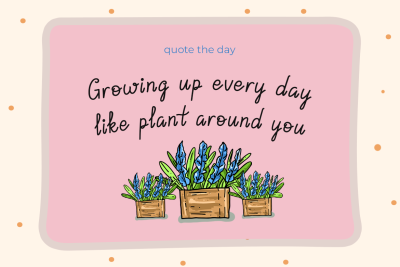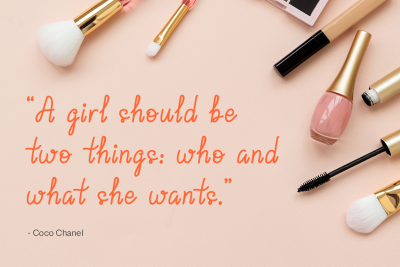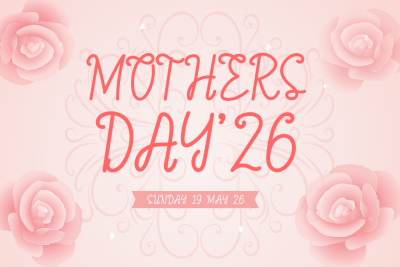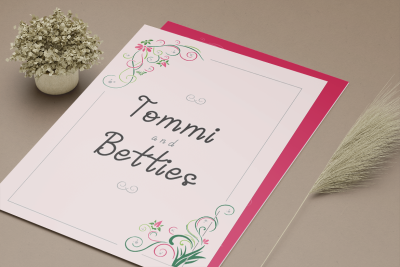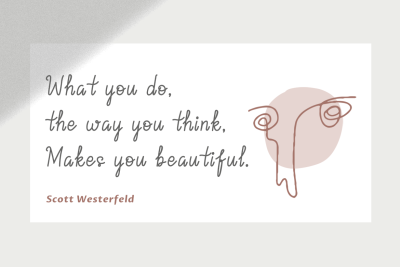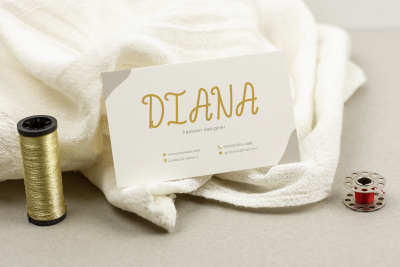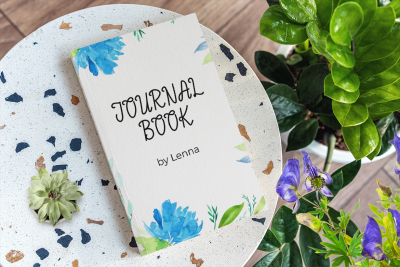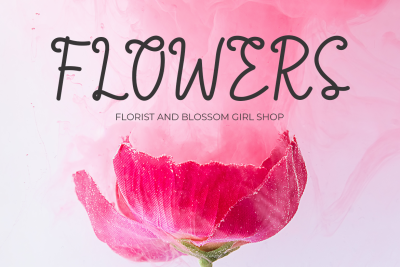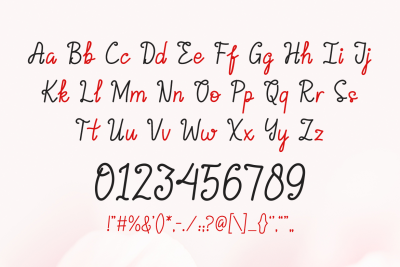
Handwriting Font Felicia is a beautifully designed script font that blends elegance with a casual handwritten feel. Moreover, its smooth curves and balanced strokes capture the charm and warmth of real handwriting. It offers a natural touch that makes any text feel more personal and inviting.
Furthermore, Handwriting Font Felicia suits various creative projects. Whether you’re designing a logo, crafting social media content, or creating invitations, this font adds sophistication and authenticity. Additionally, the subtle variations in letterforms and ligatures create a dynamic yet cohesive look, enhancing both professional and personal designs.
One of the standout features of Handwriting Font Felicia is its readability. The well-spaced letters ensure clarity in both large and small sizes. Consequently, this font excels in branding, packaging, and editorial designs where legibility matters. Moreover, it supports multiple languages, making it ideal for international projects.
Beyond its aesthetics, Handwriting Font Felicia adds an expressive and modern touch to any design. Whether used in print or digital formats, it enhances the visual appeal of any project. As a result, it is a versatile choice for various design needs.
Handwriting Font Felicia Who is it for?
Handwriting Font Felicia is perfect for designers, business owners, and creatives looking for a stylish handwritten touch. Its delicate yet confident strokes make it ideal for:
- Graphic Designers: Great for branding, packaging, and promotional materials that need a handwritten touch.
- Social Media Influencers: Additionally, perfect for Instagram posts, Pinterest graphics, and YouTube thumbnails that need a modern feel.
- Small Business Owners: Moreover, excellent for product labels, business cards, and marketing materials that help brands stand out.
- Writers & Bloggers: Furthermore, enhances book covers, blog headers, and editorial layouts with a stylish appearance.
- Wedding & Event Planners: Likewise, perfect for wedding invitations, greeting cards, and personalized stationery with an elegant charm.
- Educators & Course Creators: In addition, works well for worksheets, presentations, and educational materials, making content more engaging.
- Artists & Creatives: Moreover, ideal for handmade crafts, art prints, and creative projects needing a polished script font.
With its versatility and charm, Felicia is essential for anyone looking to enhance their designs with a sophisticated handwritten aesthetic. Whether for branding, personal projects, or social media content, this font ensures every word appears beautifully crafted and visually captivating.